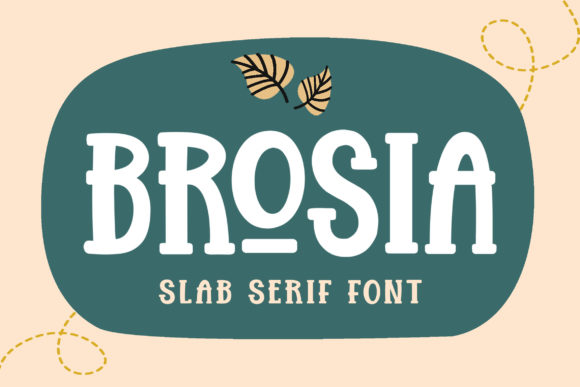
Looking for the perfect font to elevate your creative projects? Look no further than Brosia Font, created by Subectype. This chunky lettered slab serif font is the ultimate game-changer that will make your designs truly unforgettable.
With Brosia Font, your projects will captivate and mesmerize, leaving a lasting impression on your audience. Its bold and striking appearance demands attention, making it the best font for display ads. Whether you're designing logos, posters, or social media graphics, Brosia Font will effortlessly enhance your visual content.
One of the greatest advantages of Brosia Font is its versatility. It seamlessly adapts to various design styles and themes, allowing you to experiment and unleash your creativity. From modern and edgy to classic and elegant, this font effortlessly complements any concept, making it an invaluable asset for designers and marketers alike.
Imagine the impact of using Brosia Font in your advertising campaigns. Your message will be conveyed with power and conviction, instantly grabbing the attention of potential customers. Brosia Font adds a touch of professionalism and sophistication, elevating your brand image and setting you apart from the competition.
But Brosia Font is not just about aesthetics; it's about evoking emotions. Its bold strokes and unique letterforms evoke a sense of strength, confidence, and reliability. With Brosia Font, your designs will speak directly to your audience, forging a deep connection and leaving a lasting impression.